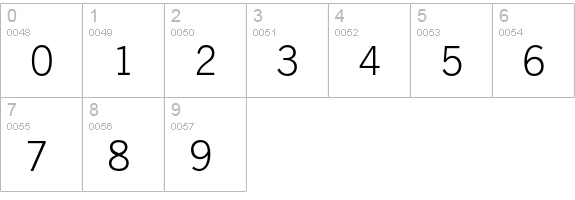
News Gothic Light is a refined, elegant variant in the News typeface family \xE2\x80\x94 well suited to elegant body text, refined sub-headings, and luxury branding.
News Gothic Light is a modern and sophisticated typeface that exudes elegance and clarity. This sleek and versatile font is perfect for conveying a clean and professional look in various design projects. With its clean lines and minimalistic design, News Gothic Light is ideal for headlines, body text, and other typographic elements. What makes News Gothic Light even more appealing is that it is available for free download at FontsMarket.com. This means that designers and creators can easily access this premium font without any cost, making it a valuable addition to their font library. With its timeless appeal and timeless design, News Gothic Light is sure to enhance any project with its understated sophistication.